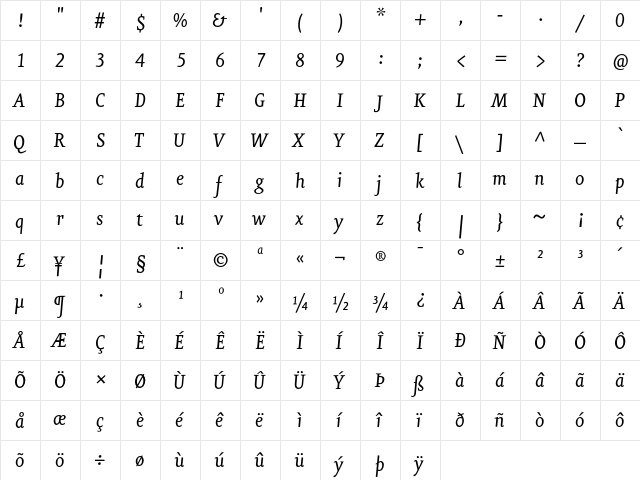
Eureka Regular Italic
Design Context for Eureka Typeface
Eureka takes a measured approach to typography — its balanced proportions and neutral character make it a reliable workhorse for both digital and print work. The slanted form adds forward momentum and visual energy.
Pro Tip: Try Eureka for annotation and caption copy alongside an upright companion — the contrast in angle creates a dynamic but ordered typographic system.